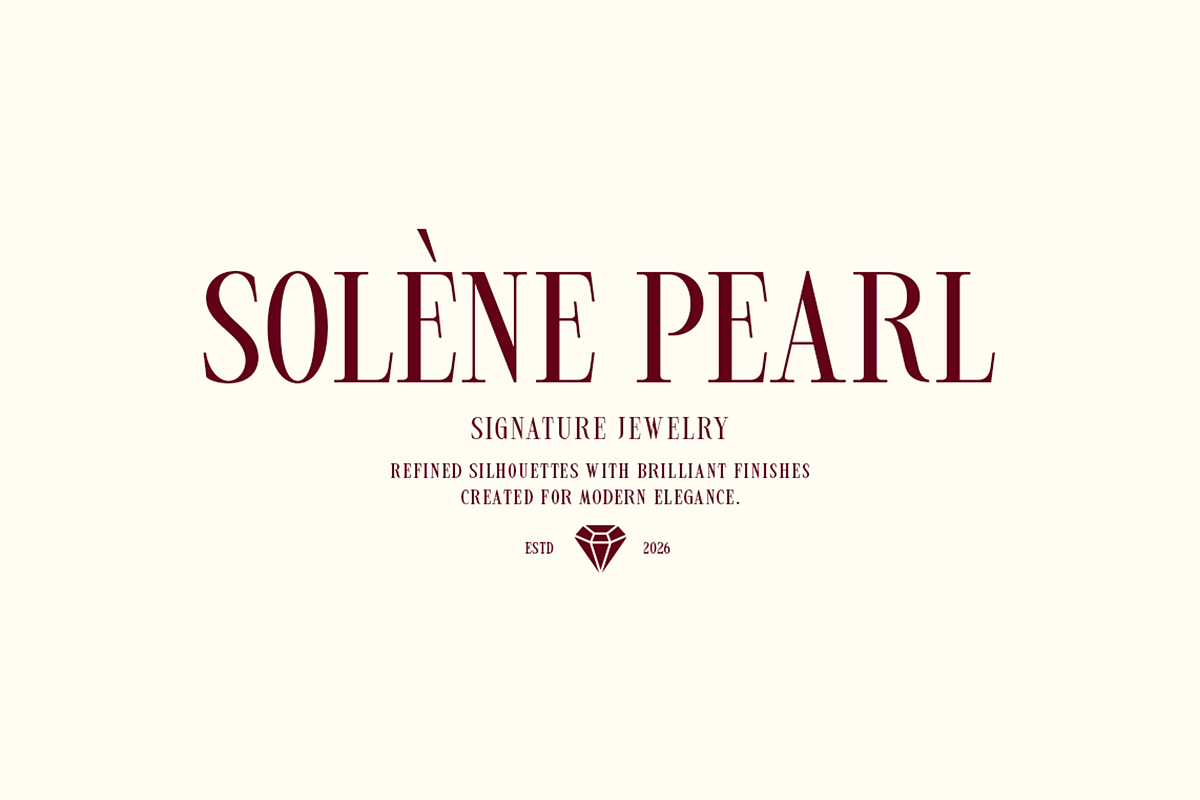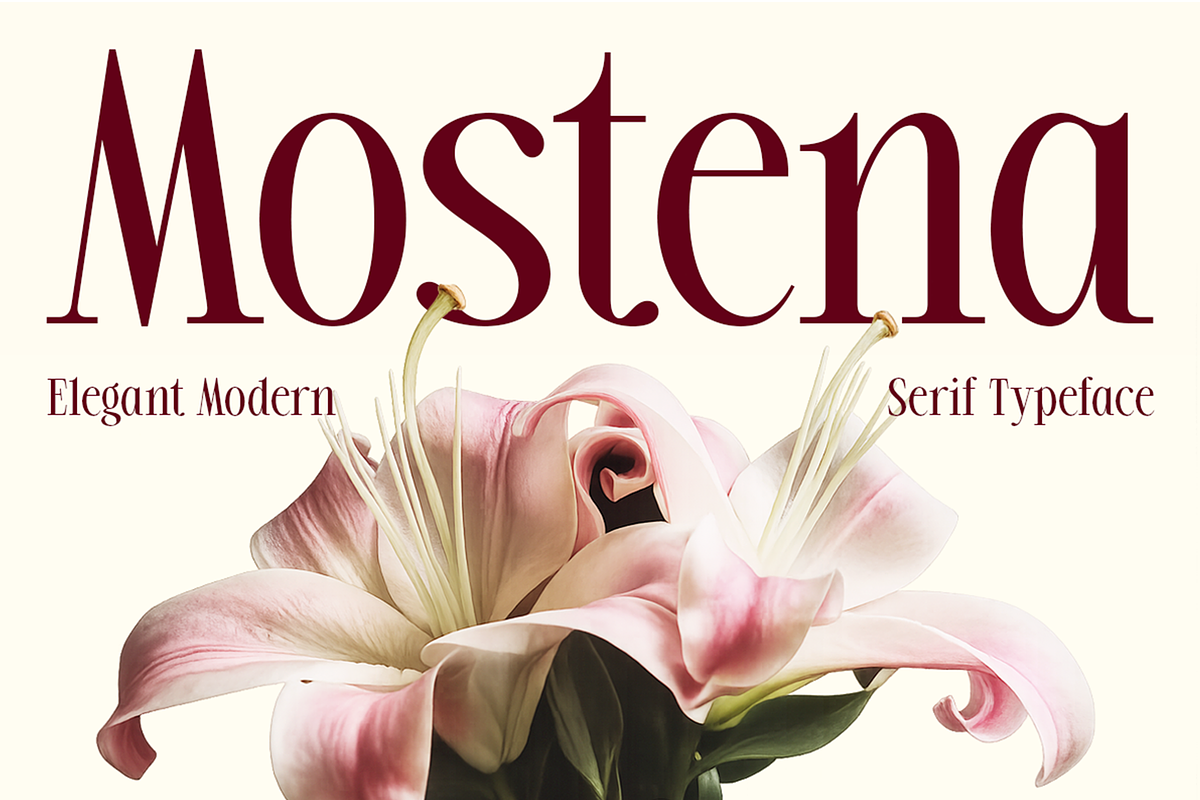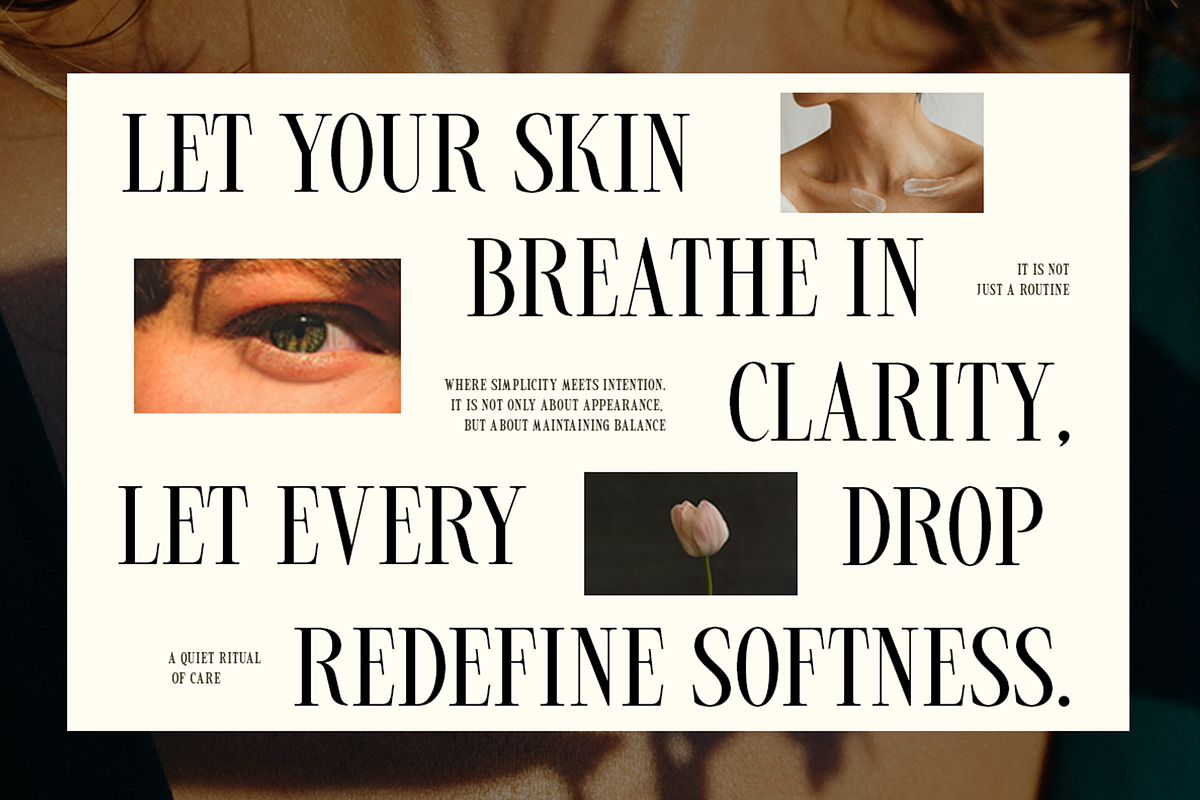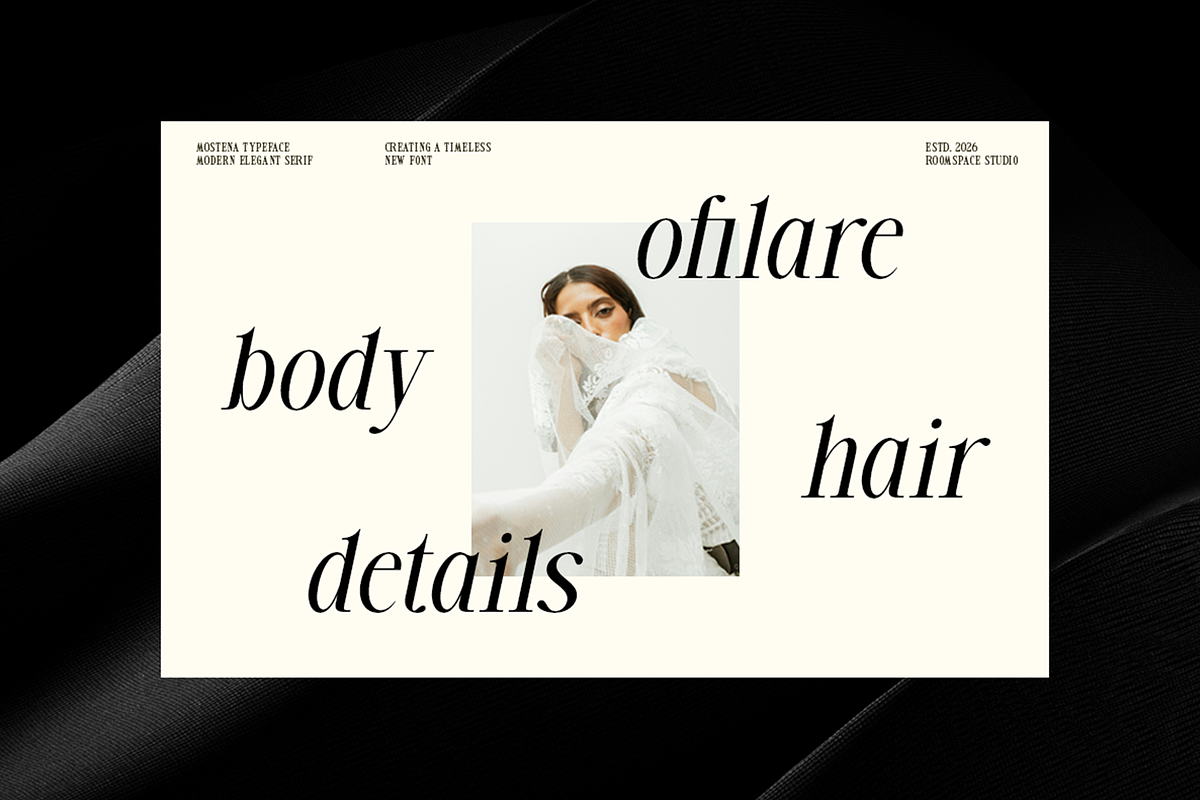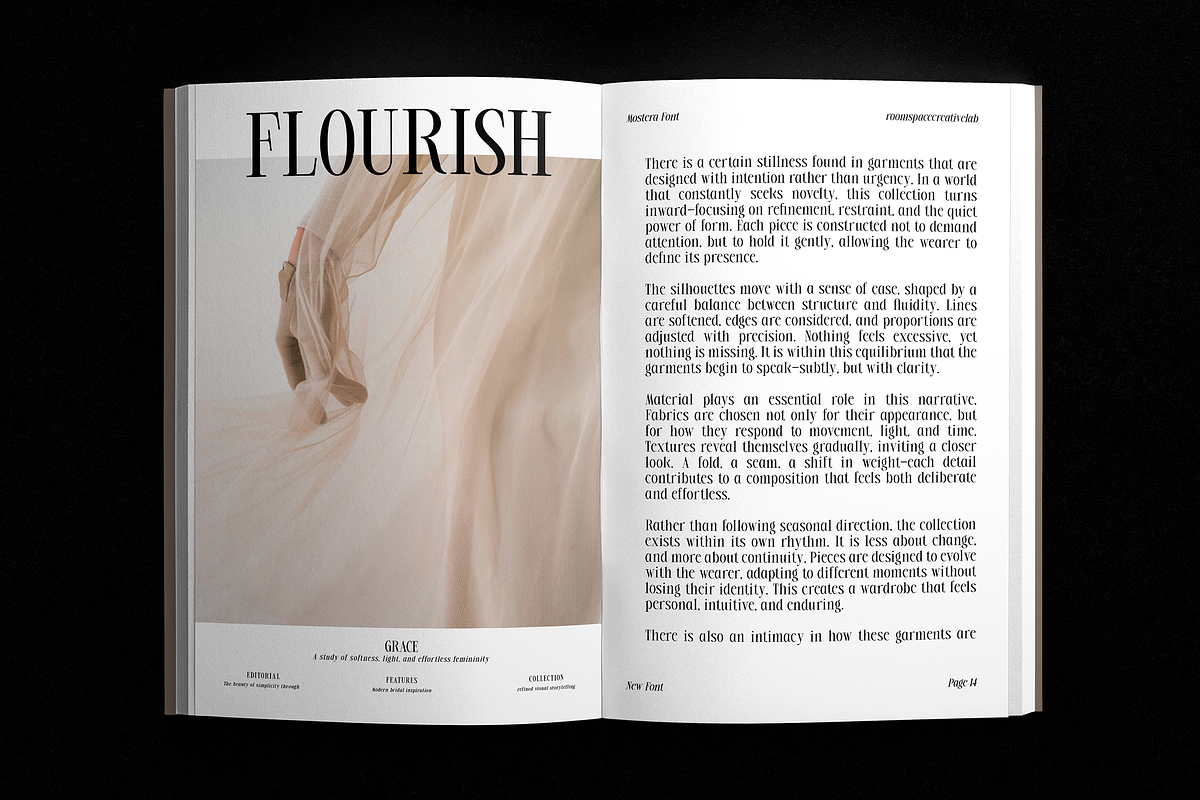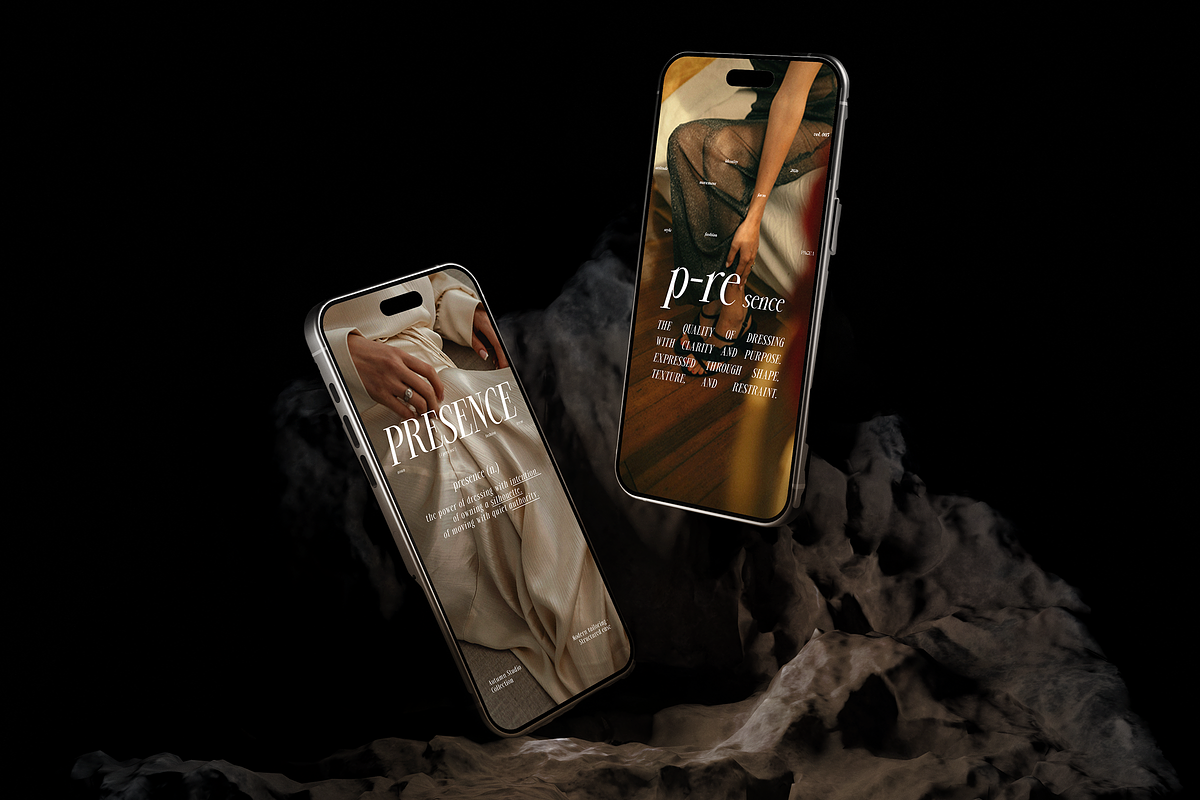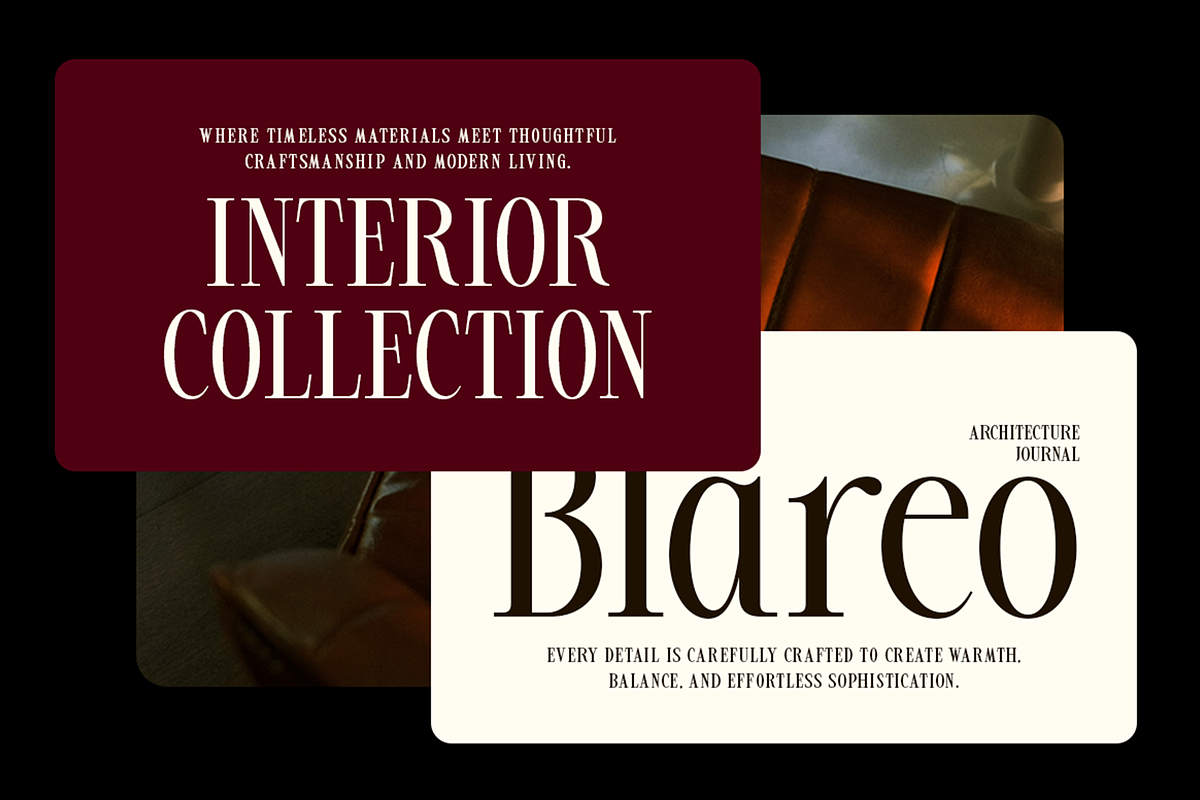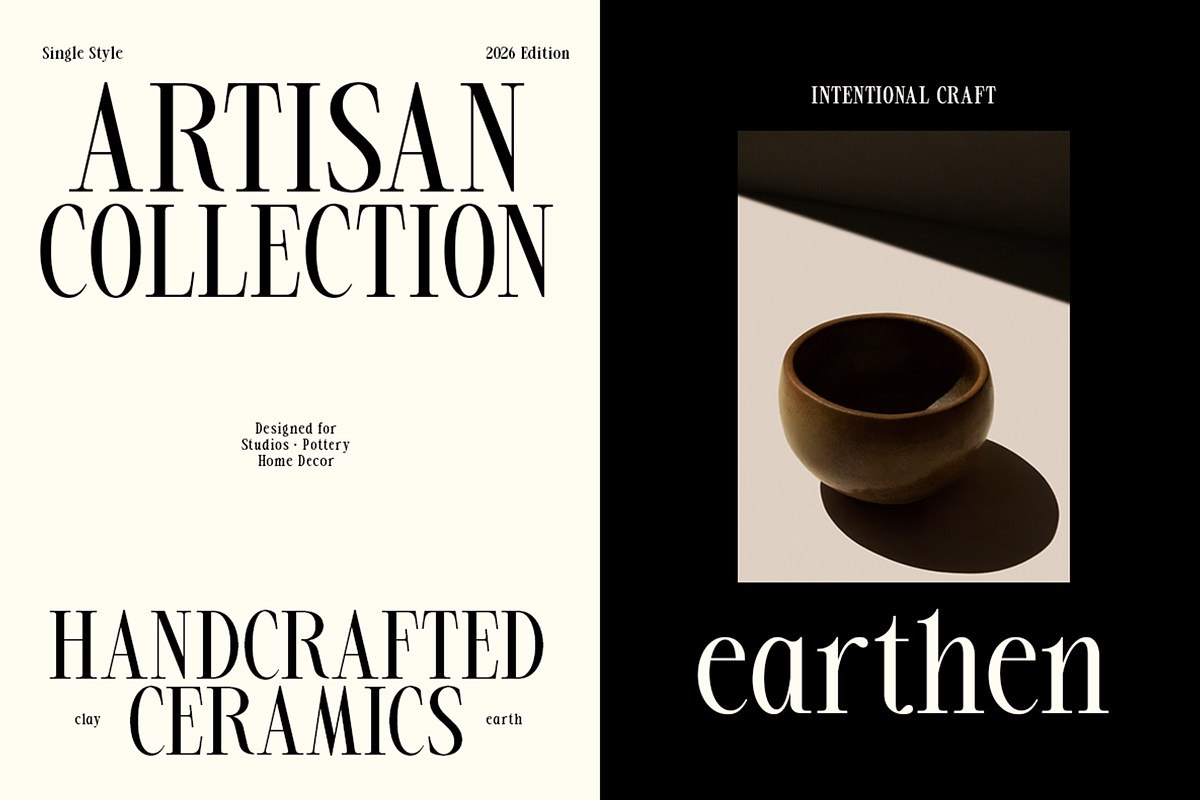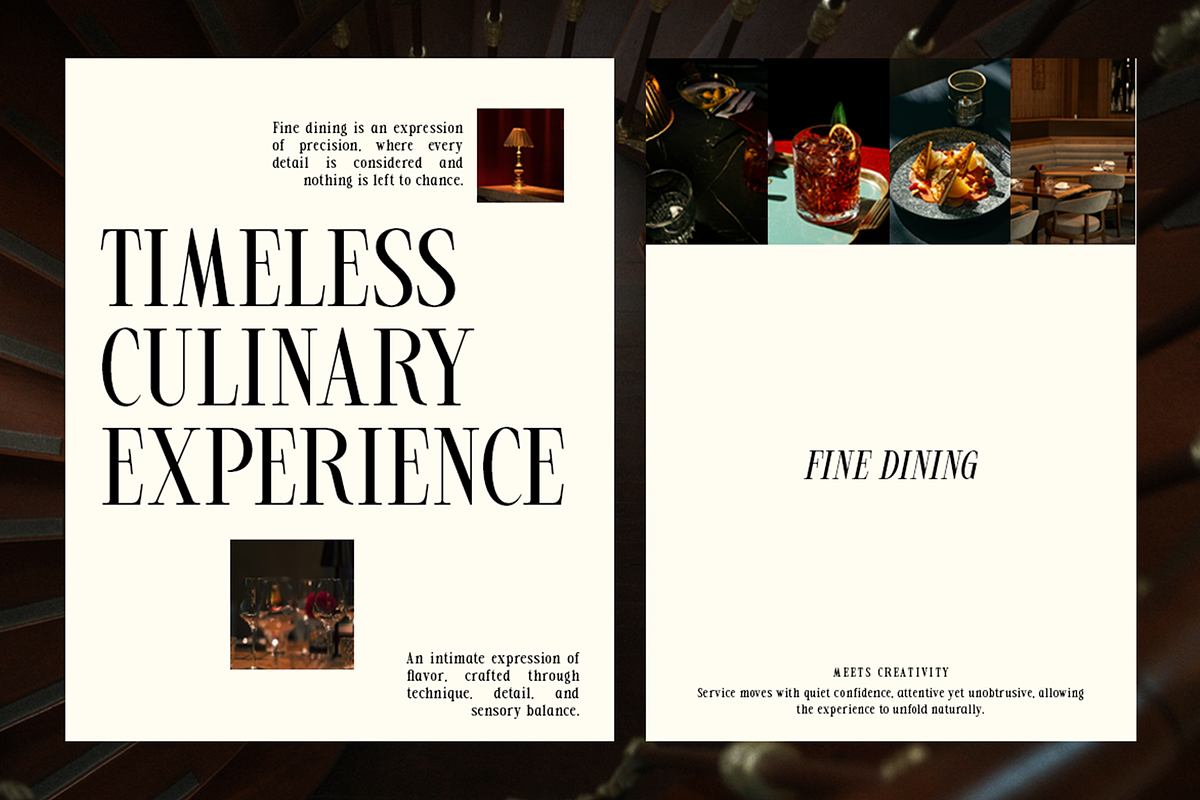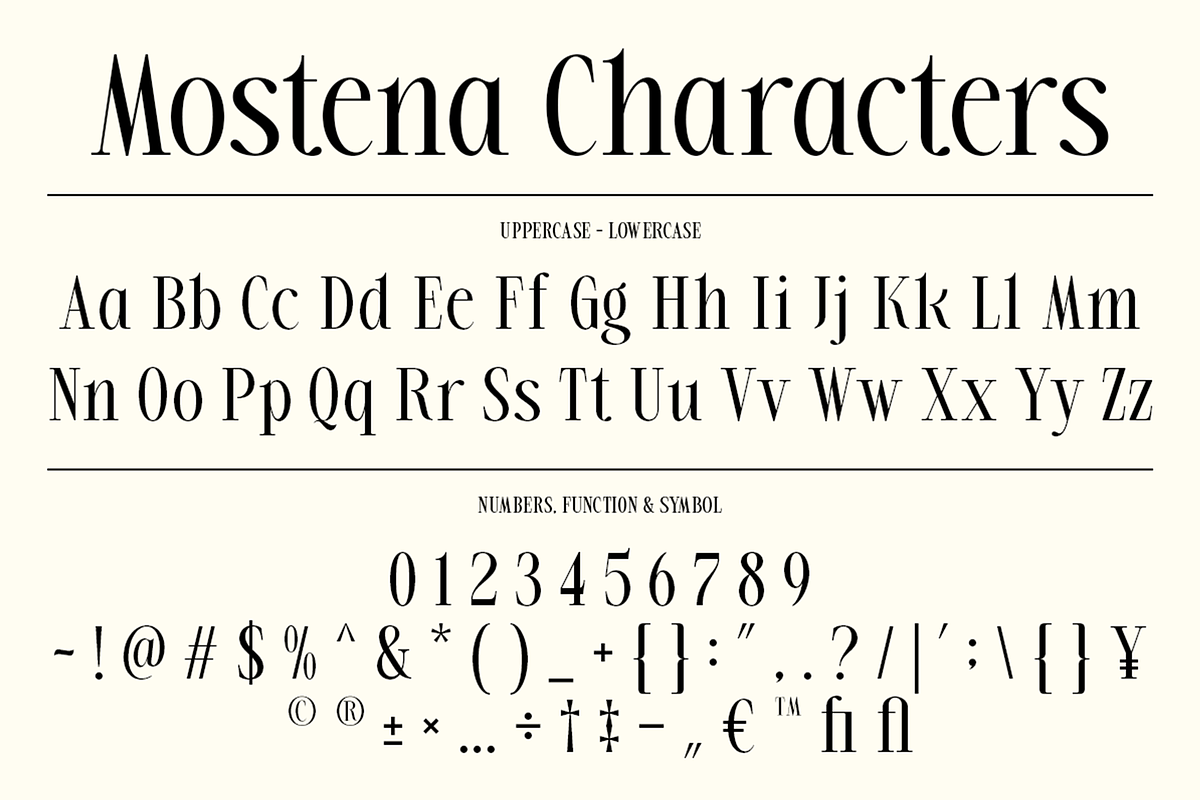
Mostena - Modern Elegant Serif
Introducing Mostena, a modern, elegant serif typeface designed with refined proportions, graceful curves, and high-contrast letterforms. Blending timeless serif aesthetics with a contemporary touch, Mostena creates a sophisticated visual presence that is perfect for luxury branding, fashion editorials, beauty packaging, logos, magazines, invitations, websites, and premium marketing materials. Its balanced structure ensures excellent readability while maintaining a distinctive and stylish personality across both print and digital designs. Complete with multilingual support and elegant ligatures, Mostena is a versatile choice for designers seeking a refined serif font for a wide range of creative projects.